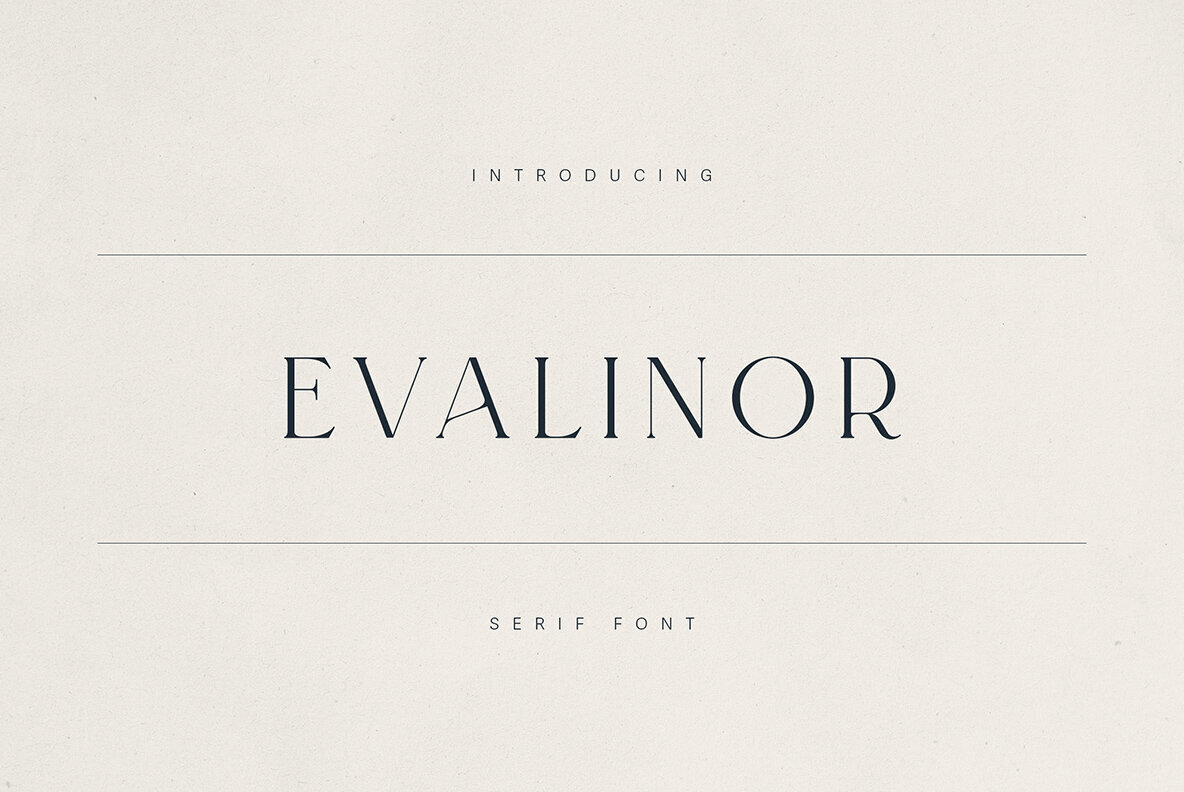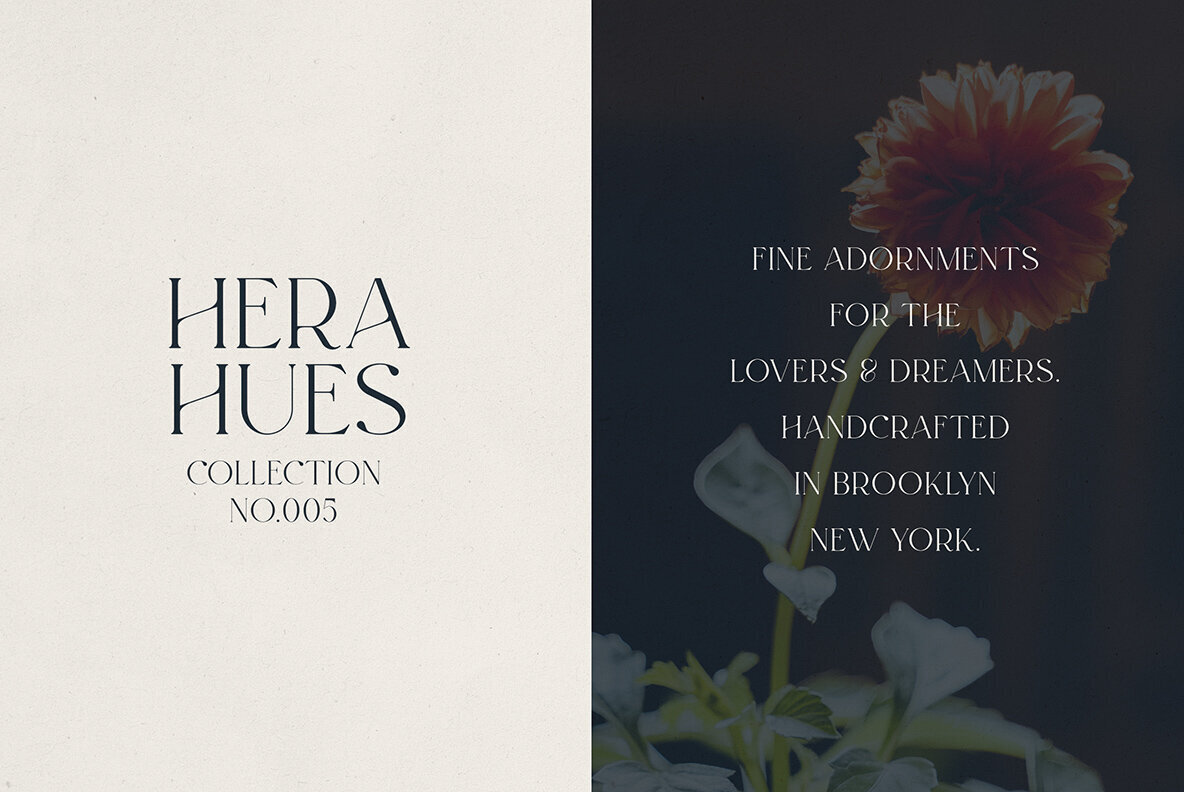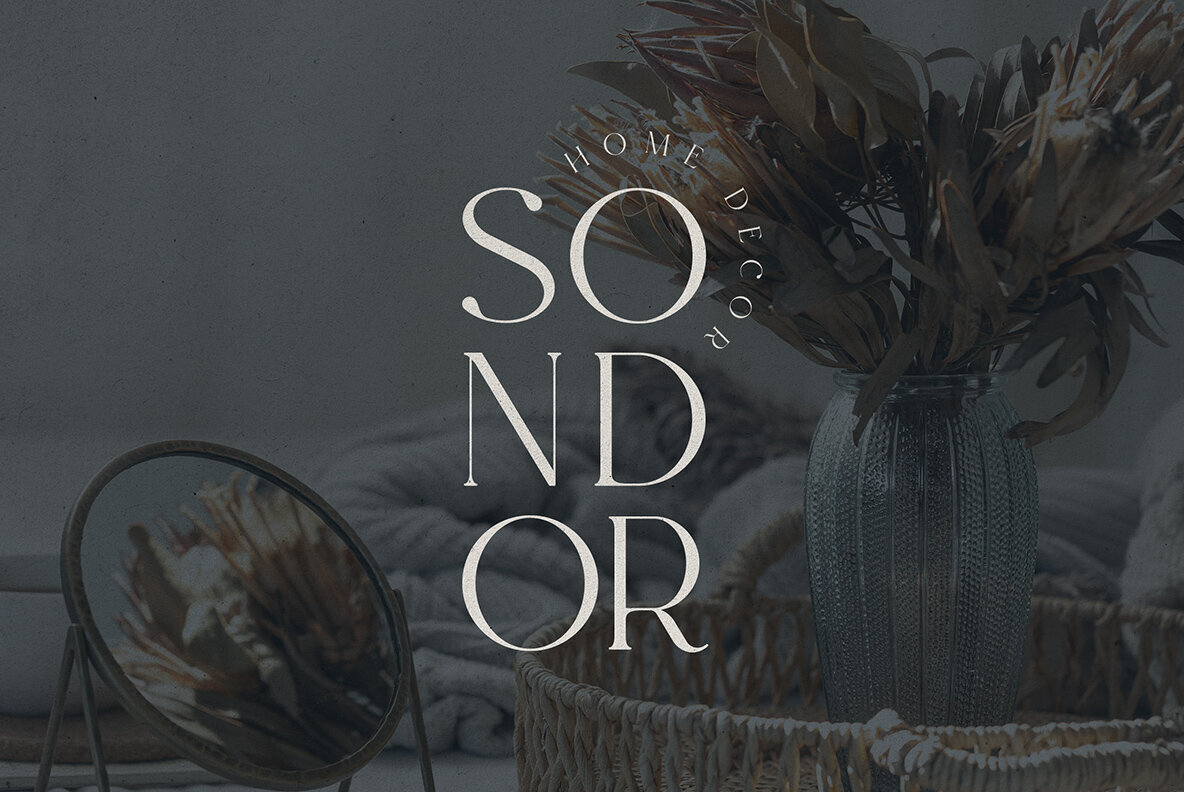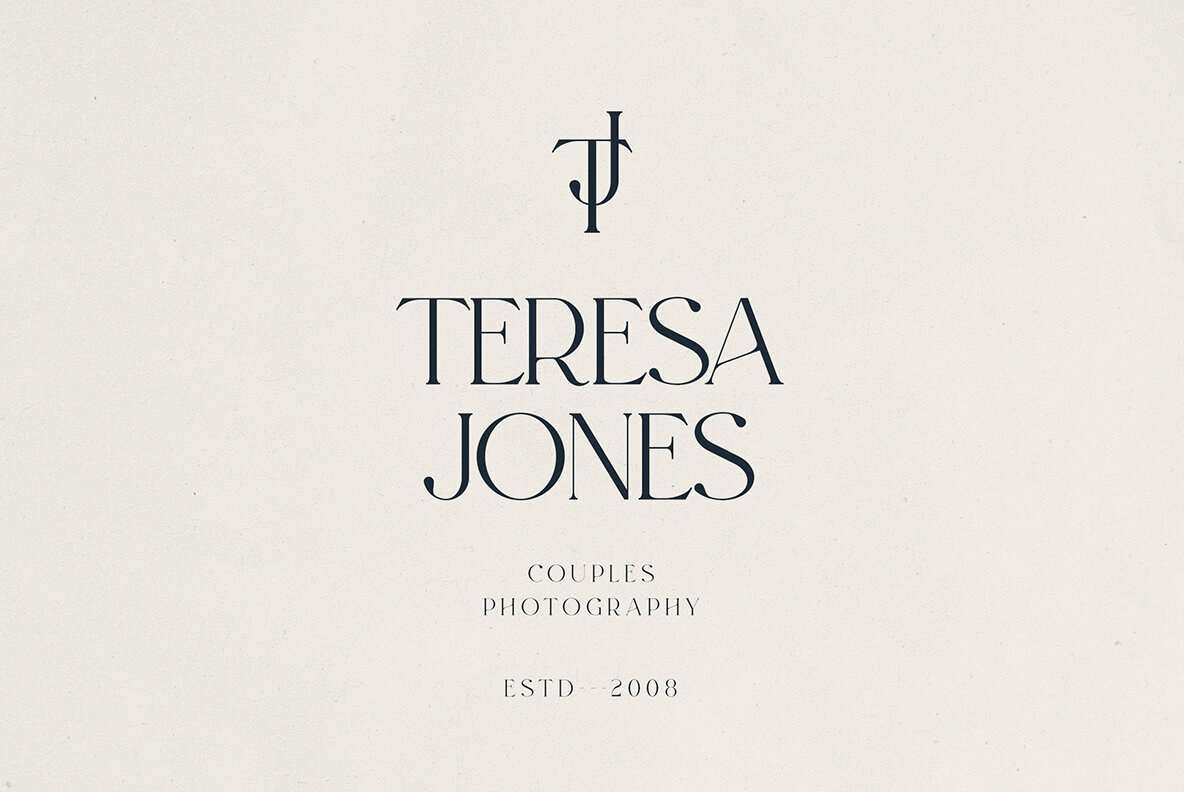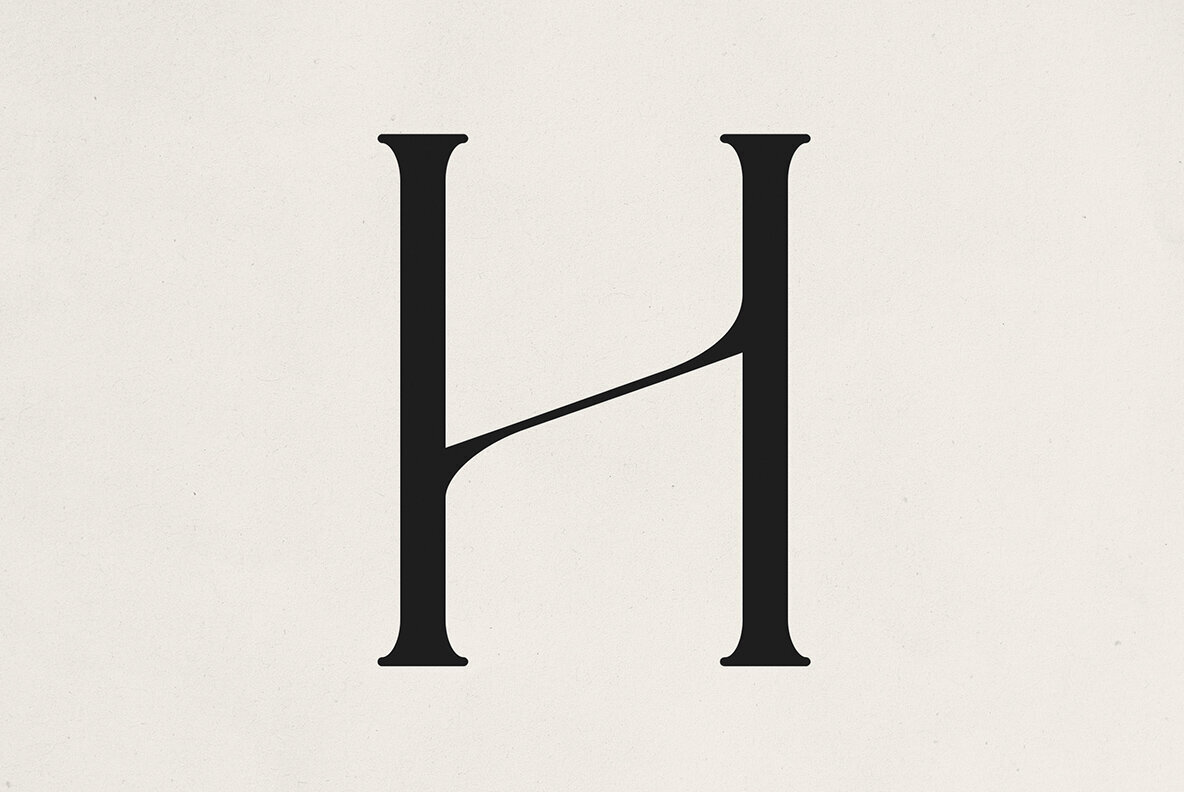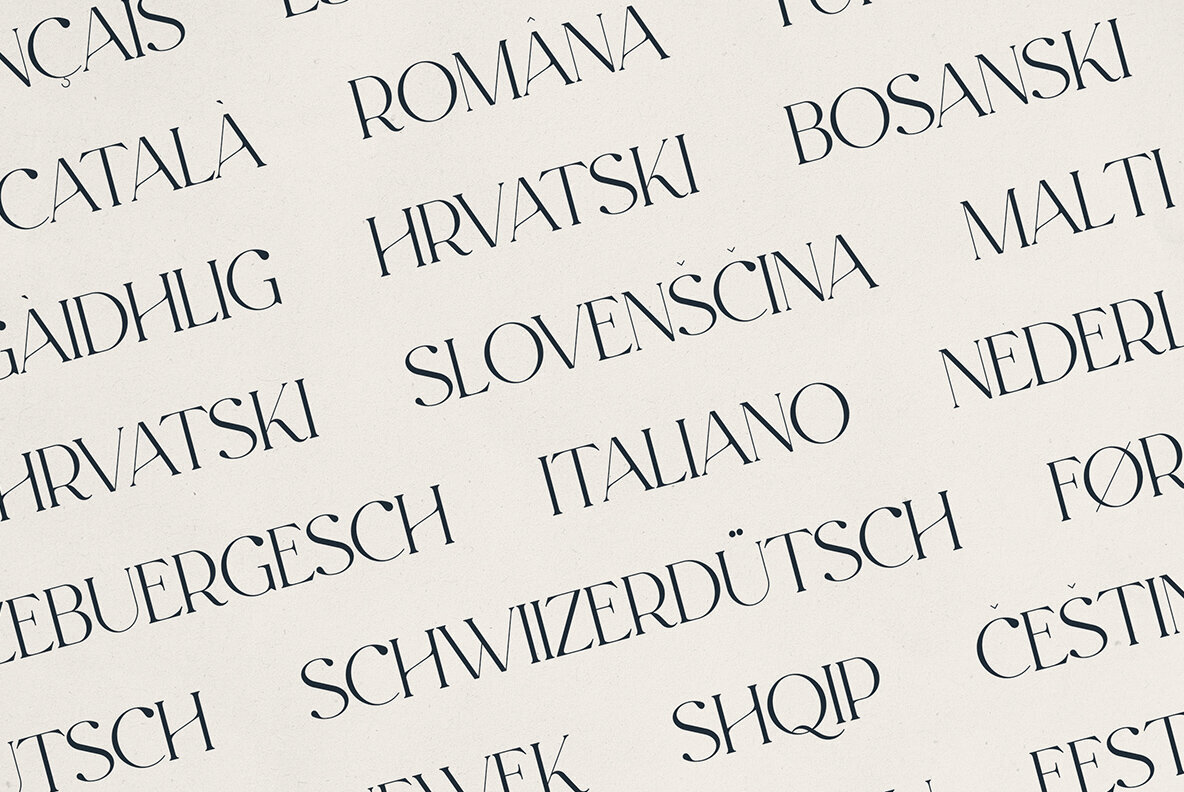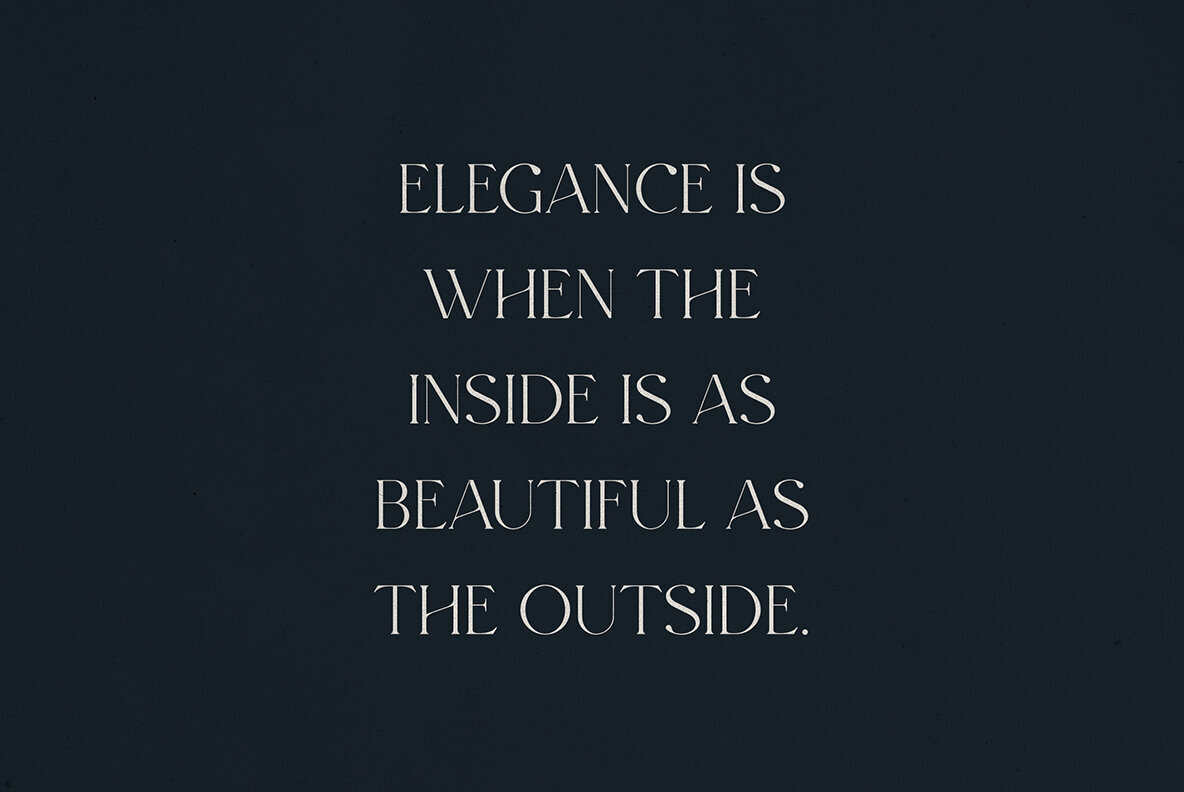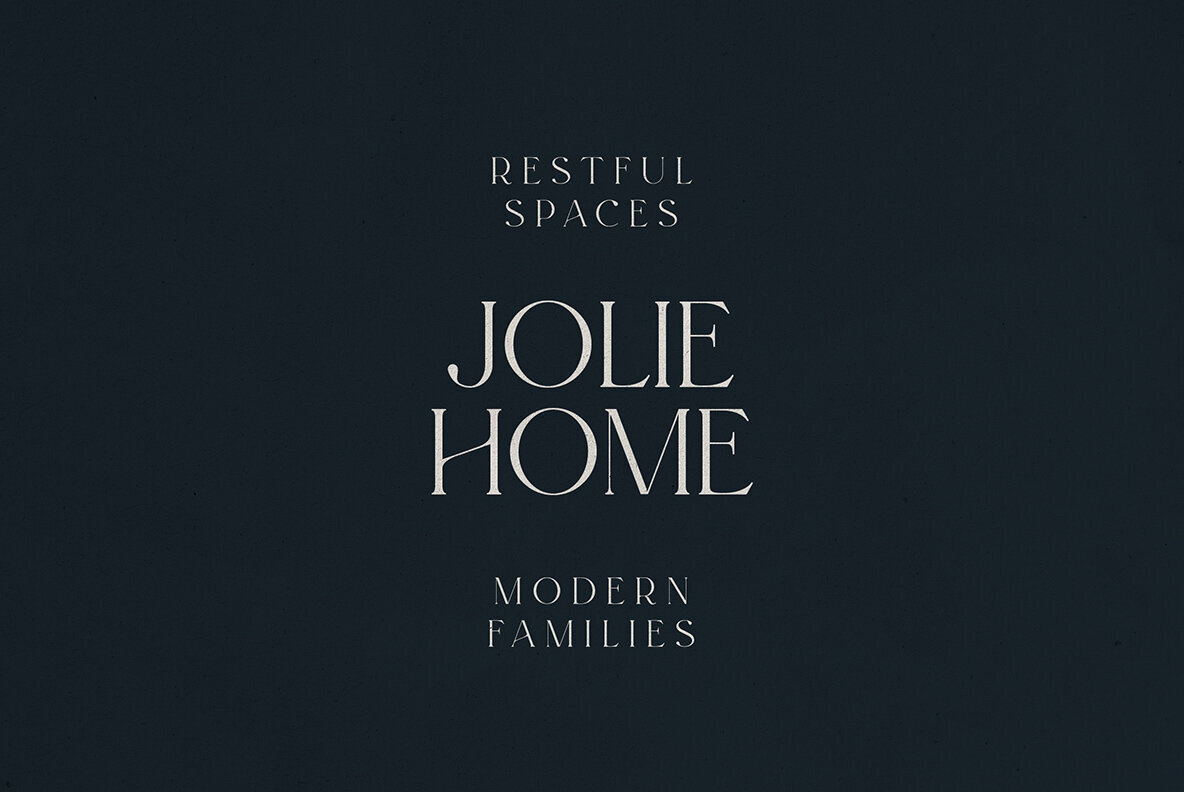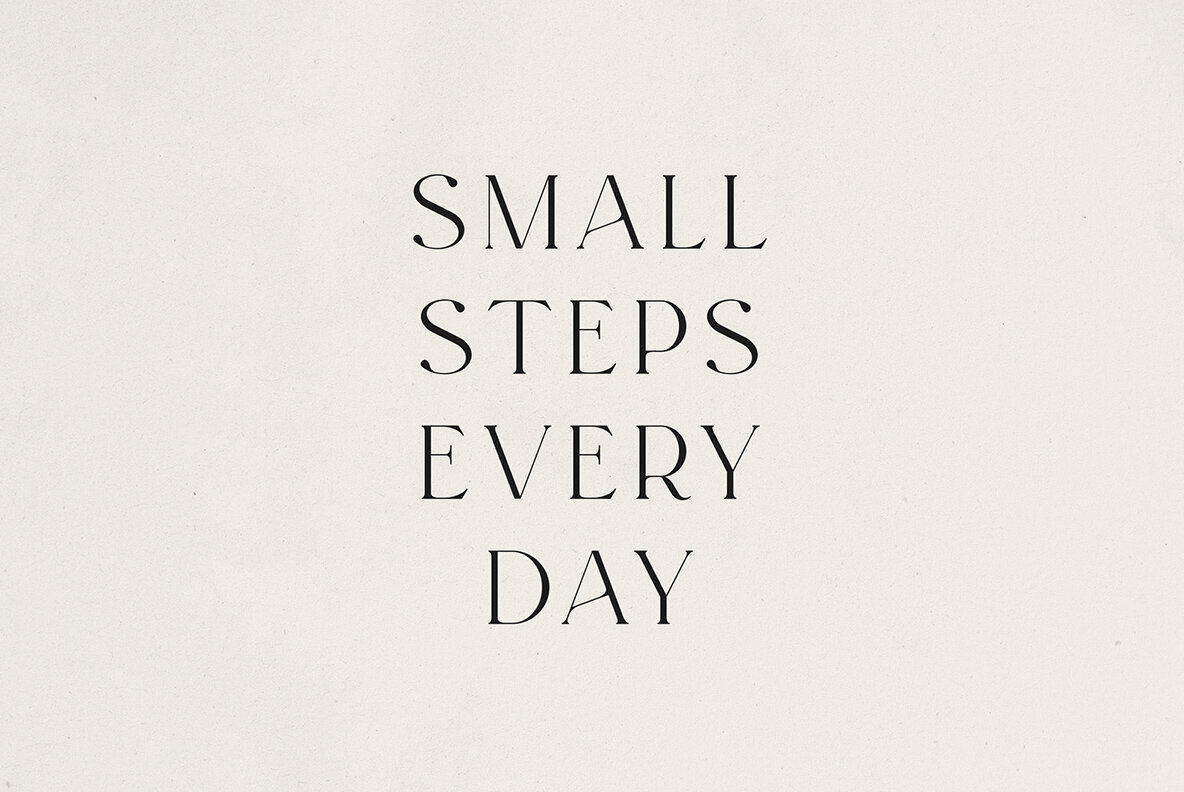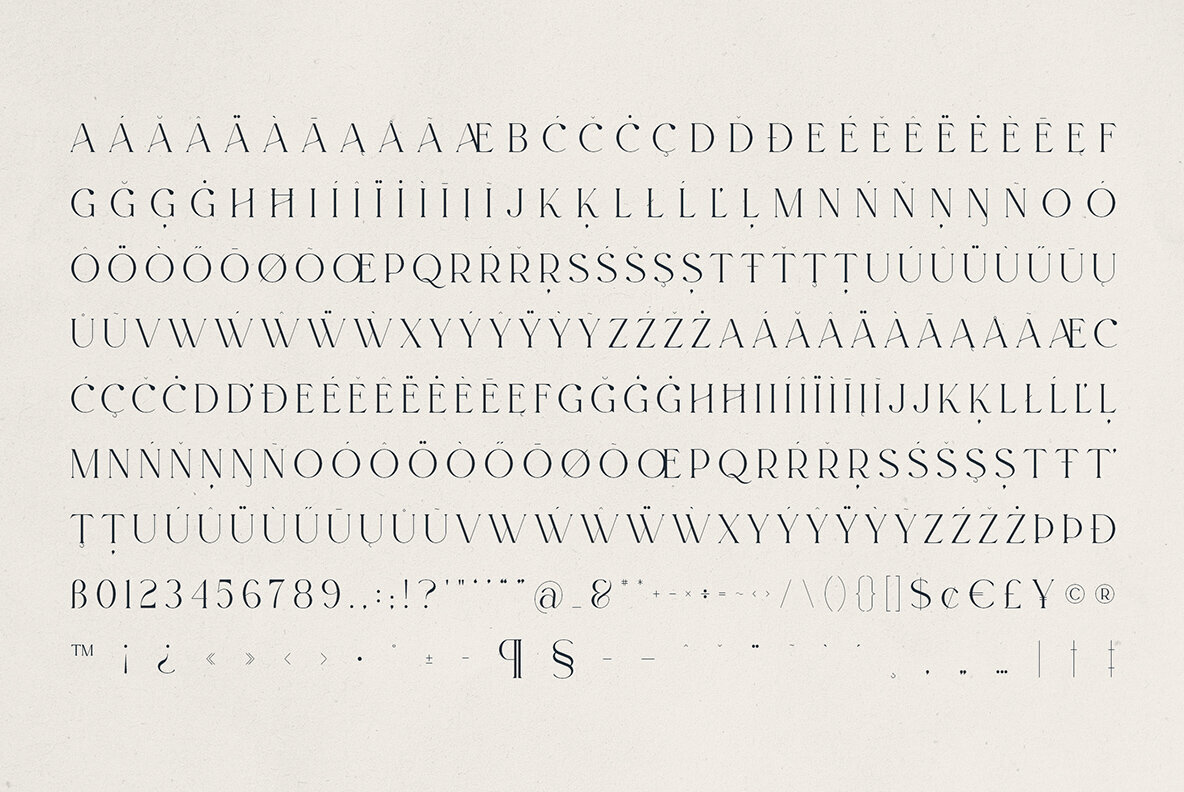
Evalinor Font
Evalinor Regular
Evalinor is more than just a font—it's a visual statement. Featuring high-contrast strokes, fine serifs, and subtle curves, Evalinor introduces a handcrafted yet modern allure to every project. Unique letterforms like the flowing "A" and graceful "H" imbue each word with character and sophistication. This typeface is the perfect choice for those looking to convey elegance in luxury logos, wedding invitations, editorial layouts, packaging, home décor branding, photography studios, and lifestyle designs. Evalinor seamlessly blends refined romance with creativity, ensuring your text stands out with timeless charm. With its versatility, Evalinor is apt for both headlines and body text, ensuring flexibility across various design needs. Its extensive language support includes Afrikaans, Albanian, Basque, Dutch, English, French, German, Italian, Spanish, Swedish, and many more, making it accessible to a global audience. Embrace Evalinor for an infusion of artistic elegance in your next project.Evalinor: A Modern Serif with Artistic Elegance